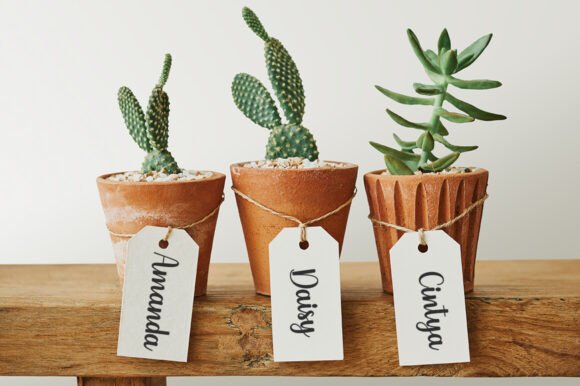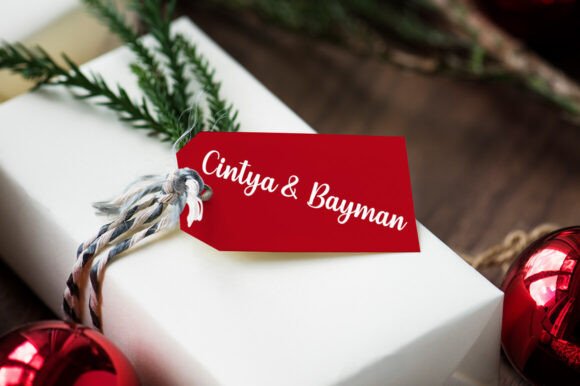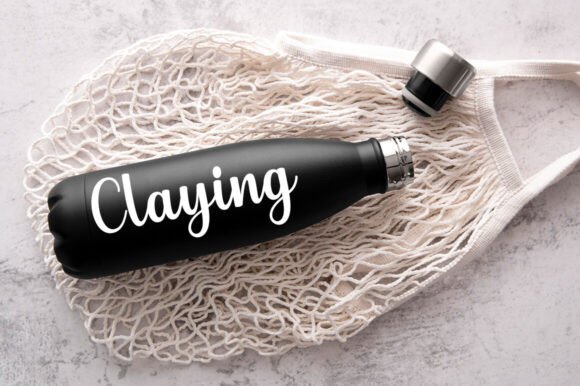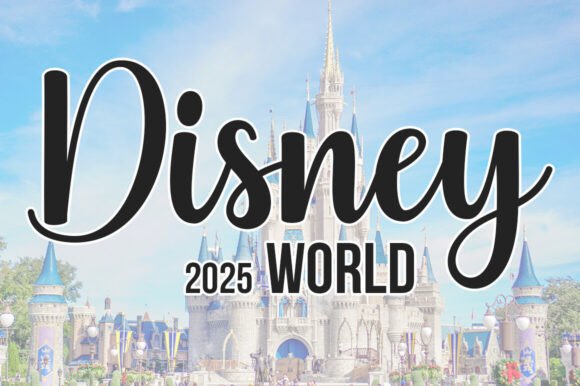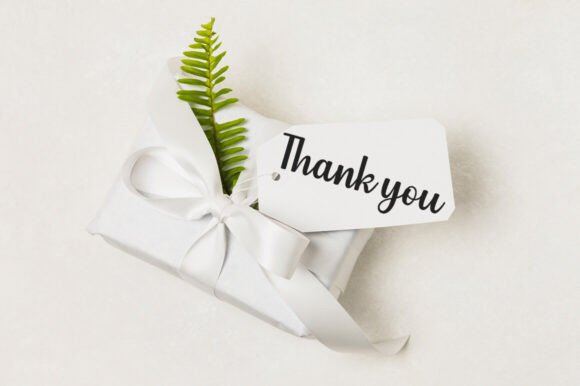
Unleashing Whimsy: The Delightful Charm of Bunny Playdate Font
Who among us hasn’t felt that spark of creativity while brainstorming a new design project? Maybe it’s the thrill of combining colors, the excitement of experimenting with typography, or the joy of bringing a concept to life. Whatever the spark, it’s moments like these that make design truly magical.
Enter the Bunny Playdate Font, a cursive handwritten font that embodies the very essence of sweetness and warmth. This charming font is designed to infuse your designs with a sense of passion and harmony, making it the perfect addition to any branding, wedding, or marketing project. Whether you’re a seasoned designer or just starting out, the Bunny Playdate Font is an invaluable asset that will elevate your designs and leave a lasting impression on your audience.
Bunny Playdate Font Key Features
- Font Family: Bunny Playdate is a unique, hand-drawn font designed for children’s content and playful themes.
- Unique Characteristics: Bunny Playdate features a distinctive, whimsical design with rounded edges, making it perfect for creating a playful and child-friendly atmosphere.
Bunny Playdate Font Review
At first glance, I was charmed by the whimsical and playful vibe of the Bunny Playdate Font. It’s perfect for kids’ products, party invitations, and other fun projects. ✨ The font’s rounded edges and soft curves make it an instant winner for anyone looking to add a touch of sweetness to their design.
Here are some things that really work well:
- ✨ Customizable: The font comes in a range of weights and styles, making it easy to adapt to different design needs.
- ✨ Versatile: From birthday cards to children’s books, Bunny Playdate Font can be used in a variety of creative ways.
- ✨ Friendly: The font’s approachable nature makes it perfect for brands targeting families and young audiences.
- ⚠️ Limited language support: The font may not be suitable for projects requiring a wide range of languages.
- ⚠️ Not ideal for formal or corporate projects: While Bunny Playdate Font is perfect for fun projects, it may not be the best choice for more serious or professional designs.
Overall, I think Bunny Playdate Font is a wonderful addition to any designer’s toolkit. It’s a great choice for projects that require a playful and approachable vibe. With its customizable nature and versatility, it’s sure to be a hit with designers and clients alike.
For the best results, use the Bunny Playdate Font in designs that require a playful and whimsical feel.
Children’s party invitations and decorations
Baby shower and nursery designs
Wedding and event invitations with a rustic or vintage theme